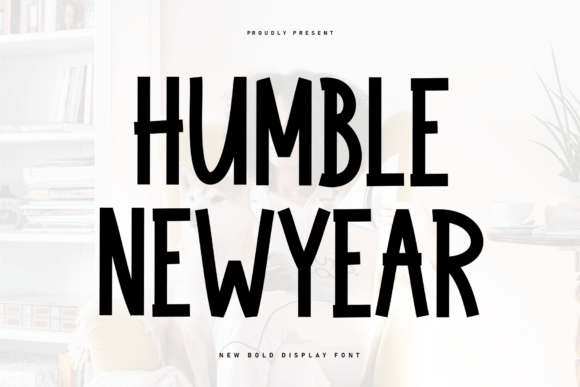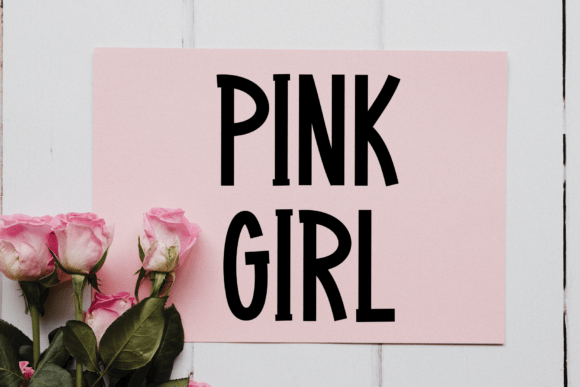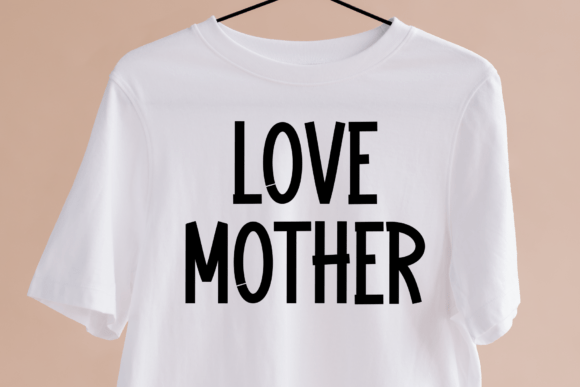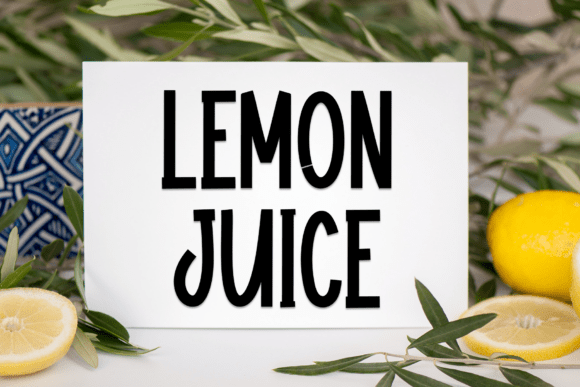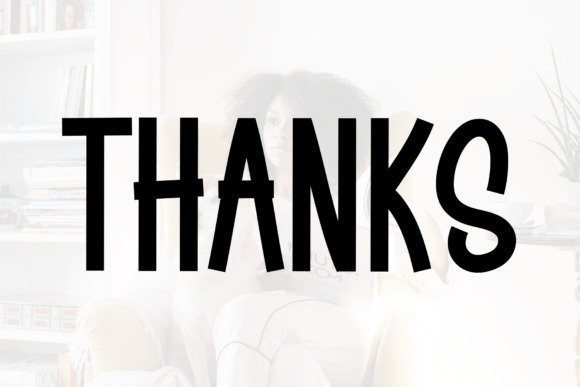
The Perfect New Year’s Touch: Discover the Humble Newyear Font
As the clock strikes midnight and the fireworks light up the sky, we’re often left with a blank page, eager to create something special to commemorate the start of a new year. Perhaps it’s a heartfelt card for a loved one, a New Year’s resolution poster, or a social media post to share with the world. Whatever it may be, the right font can make all the difference.
Enter the Humble Newyear Font, a sweet and beautiful handwritten display font that adds a cozy accent to any design project. With its unique characters that dance along the baseline, this font is sure to capture the essence of the new year’s spirit. Whether you’re a seasoned designer or a creative enthusiast, the Humble Newyear Font is a valuable addition to your toolkit, offering a fresh and charming way to express your ideas.
Humble Newyear Font Key Features
- Unique Characteristics: The Humble Newyear Font features a unique blend of modern and traditional design elements, with a focus on elegance and sophistication.
Humble New Year Font Review
As a designer, I was excited to try out the Humble New Year Font and see if it lives up to its name. Here’s my honest review:
- The font’s distressed, hand-written feel is perfect for creating a warm and inviting atmosphere, especially in designs related to holidays and celebrations.
- The font’s versatility is impressive, working well for both headings and body text.
- The font’s ligatures and swashes add a touch of elegance and sophistication, making it suitable for high-end designs.
- The font’s readability can be a concern, especially at smaller font sizes, as some letters can be easily confused with each other.
- The font’s style may not be suitable for designs that require a more modern or clean look.
- The font’s range of weights is limited, which can make it challenging to achieve a consistent design flow.
The Humble New Year Font is a solid choice for designers looking to create warm and inviting designs. While it has its limitations, its unique style and versatility make it a great addition to any design toolkit. With some careful consideration and planning, this font can help create stunning and effective designs.
For the best results, use the Humble Newyear font in combination with a clean and modern design aesthetic. It’s perfect for: